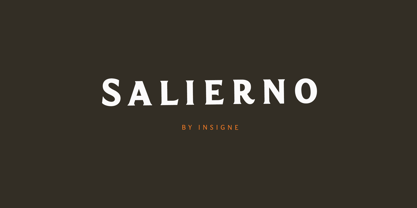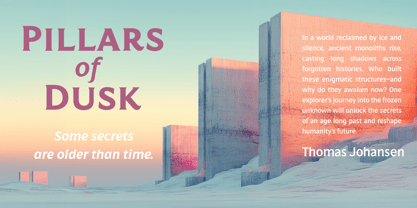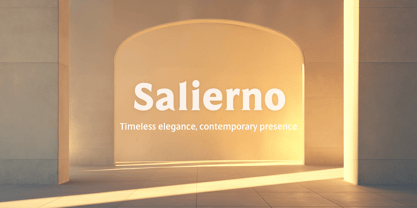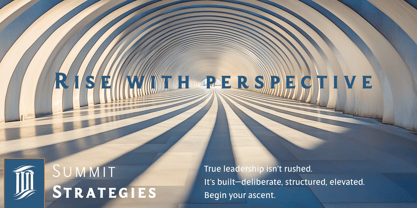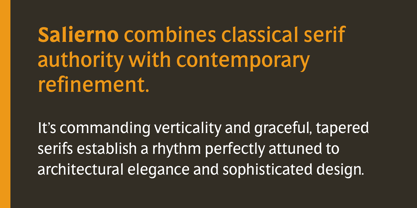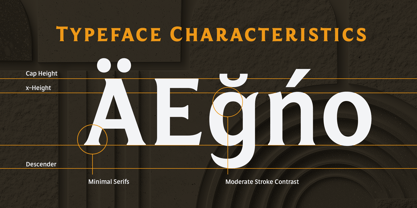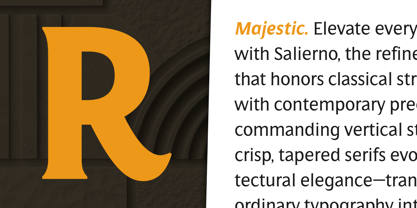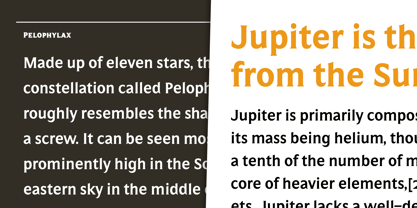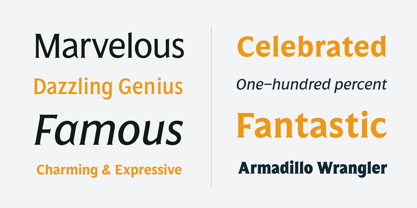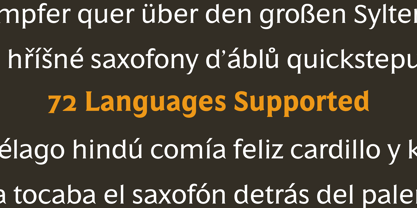
Salierno
by insigne
The Salierno Font Family was designed by Jeremy Dooley and published by insigne. Salierno contains 54 styles and family package options. More about this family
Salierno: Command Attention with Timeless Elegance.
Tired of typefaces that feel dated or lack presence? Meet Salierno. This refined serif instantly elevates your designs, blending classical structure with modern precision.
• Achieve Architectural Grace: Salierno's strong verticality and crisp, tapered serifs give your typography undeniable authority and sophistication.
• Balance Heritage & Modernity: Perfect for projects demanding distinction – from luxury branding and cultural institutions to high-end publications.
• Effortless Global Reach: Comprehensive character sets and multilingual support ensure your vision translates seamlessly across borders.
Salierno isn't just a font; it's a statement. Its meticulously crafted letterforms, from statuesque caps to harmonious lowercase, provide both beauty and function. Give your next project the presence and refinement it deserves.
“Type is very much like music,” says Jeremy Dooley. “It is linear, and the notes or phrases have to fit the theme or song.” Jeremy, owner of the one-man foundry, insigne, is a self-taught type designer and a true self-made success story. His label is home to over a hundred font families, many of which have seen great success. Aviano has made our Best of the Year list not just once, but twice and has been featured in Hollywood blockbusters. You may have noticed various iterations of Aviano in Wall Street, Harry Potter, and Thor, and it was used for the branding of Robin Hood. Jeremy considers type to be the foundation of advanced visual communication. One form of communication that the Chattanooga-based designer is drawn to is branding. In 2011, Jeremy, took on the enormous project of coming up with a typeface that would communicate the tone and feeling of his hometown; a font that would effectively brand the city. In 2013, the result, Chatype, was named the official typeface of Chattanooga TN. “Every city needs a brand,” he says, “as every city needs to highlight its own distinctive offerings.” Like many designers, his creations are often the result of his interests. “I especially like seeing my typefaces in movies, on luxury packaging, and for technology companies,” he says. “These are interests of mine, and I often design fonts with those specific applications in mind. It’s very interesting to me that I frequently see fonts used in exactly the way I originally envisioned.” Since he began selling his first font on MyFonts in 2004, the man who will tell anyone who asks, “I’m not really from anywhere,” has continuously drawn inspiration from his many experiences gained from living all over the globe. Want more of Jeremy? The designer sat down with us for an in-depth interview in this issue of Creative Characters.